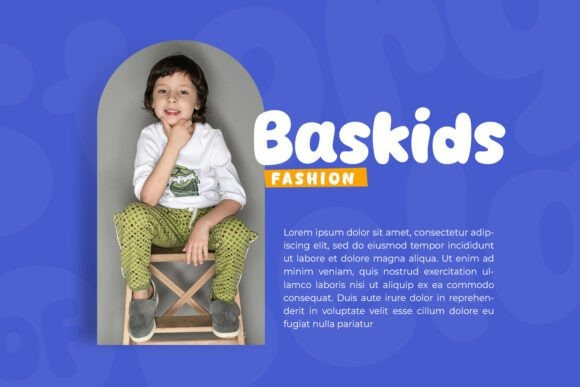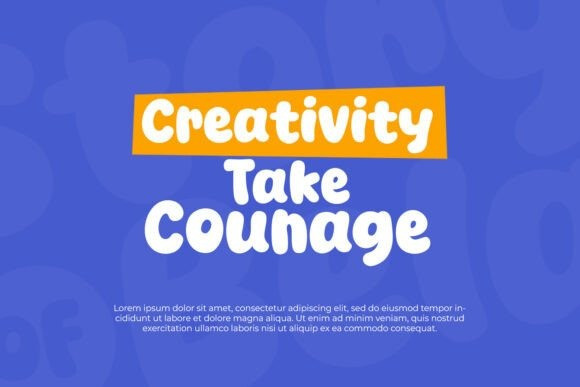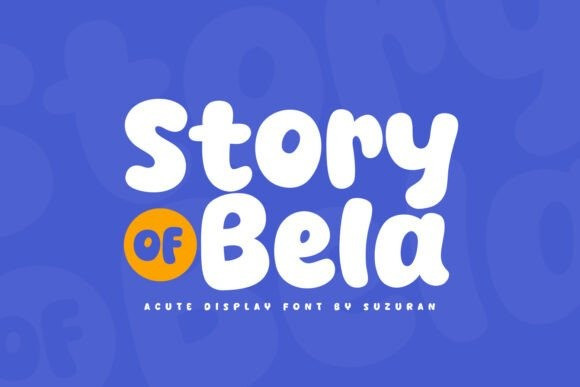
Story Of Bela Font
Story Of Bela Font is a fresh and unique display font with a lovely twist. This font is perfect for posters, logos, magazines, book covers, banners and more! Get this amazing font, and use it to create beautiful designs. It can easily be adapted to a very large set of projects, so add it to your creative ideas and watch how it makes it stand out!